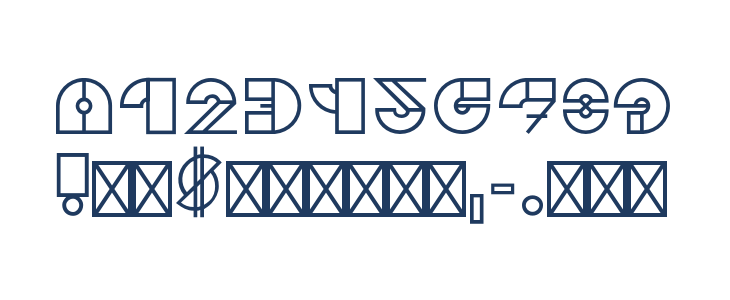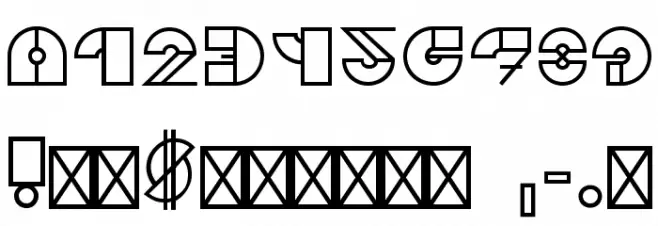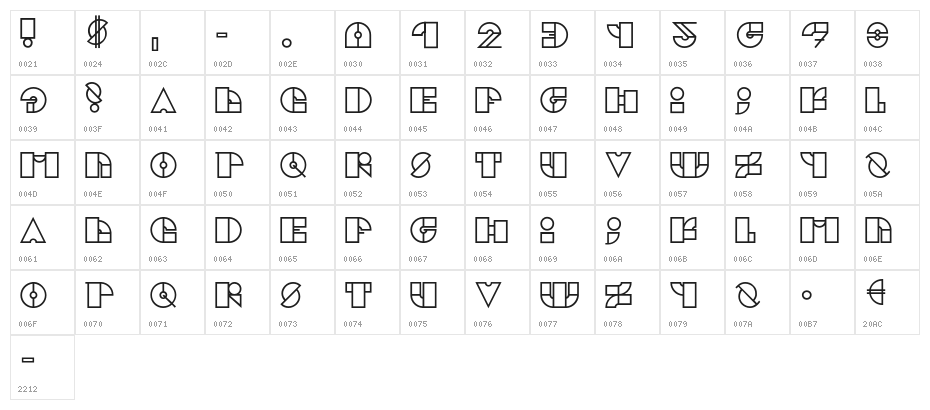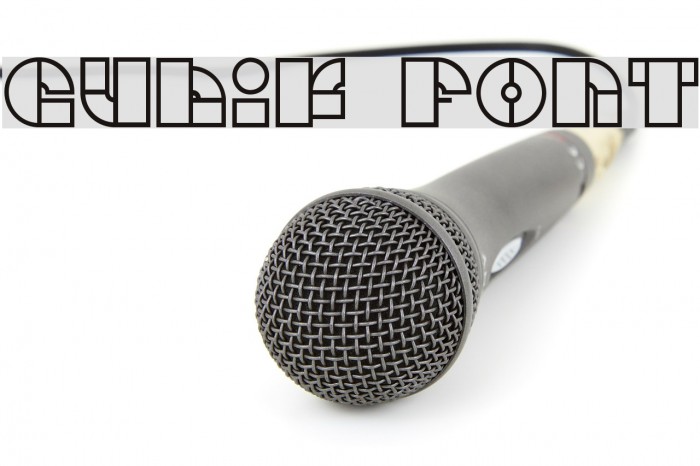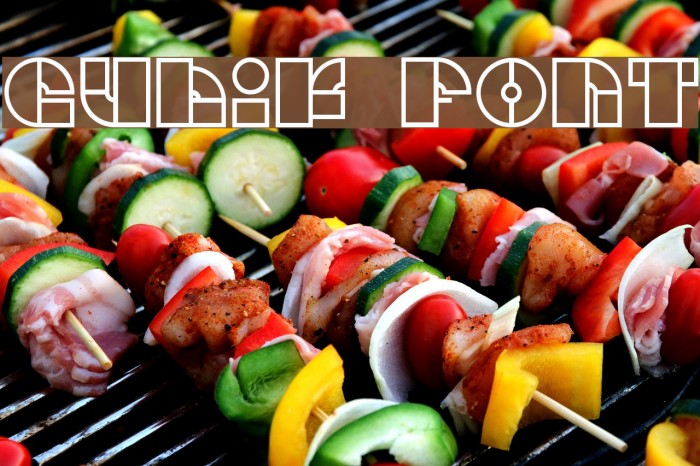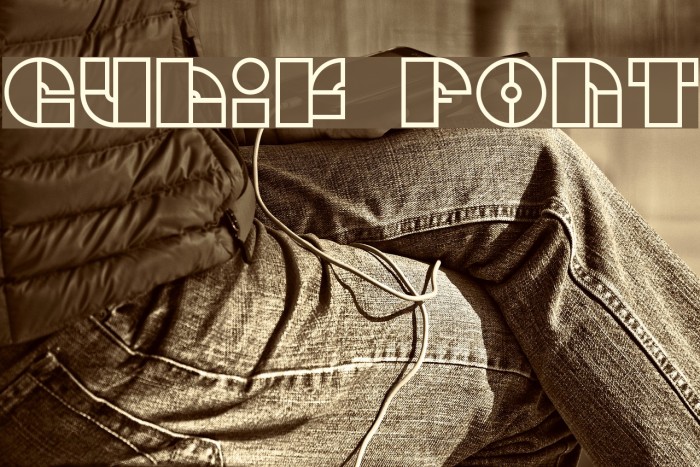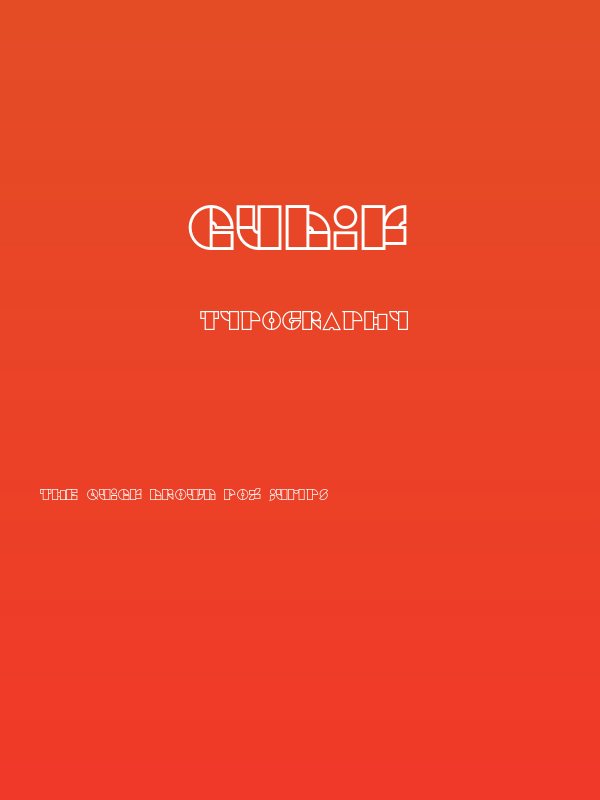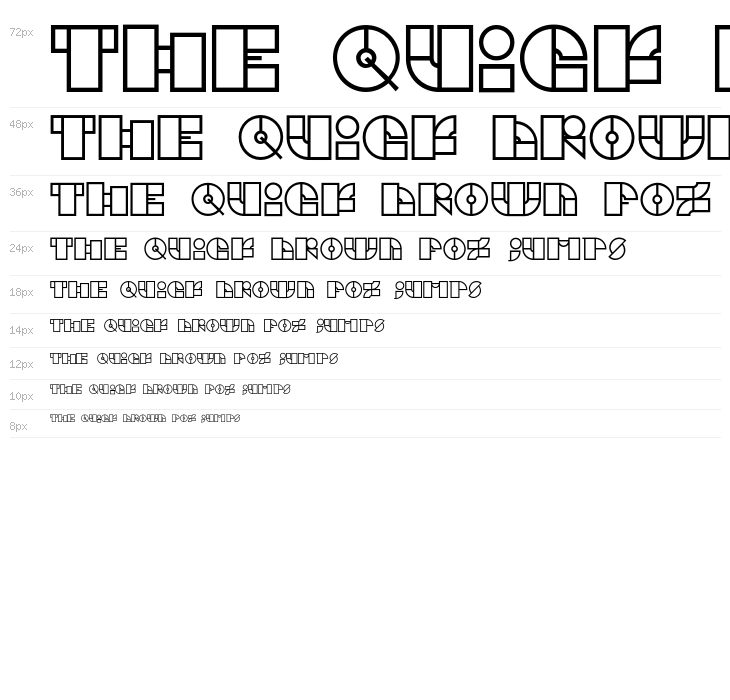
Cubik Font
Cubik Description
This font features a geometric and abstract design, characterized by its use of bold, angular shapes and lines. Each character is crafted with a combination of straight edges and curves, creating a unique and modern aesthetic. The uppercase and lowercase letters maintain a consistent style, with a focus on symmetry and balance. Numbers and special characters follow the same design principles, ensuring a cohesive look across all elements. The font's open structure and clear lines make it highly legible, while its artistic flair adds a distinctive touch to any project.